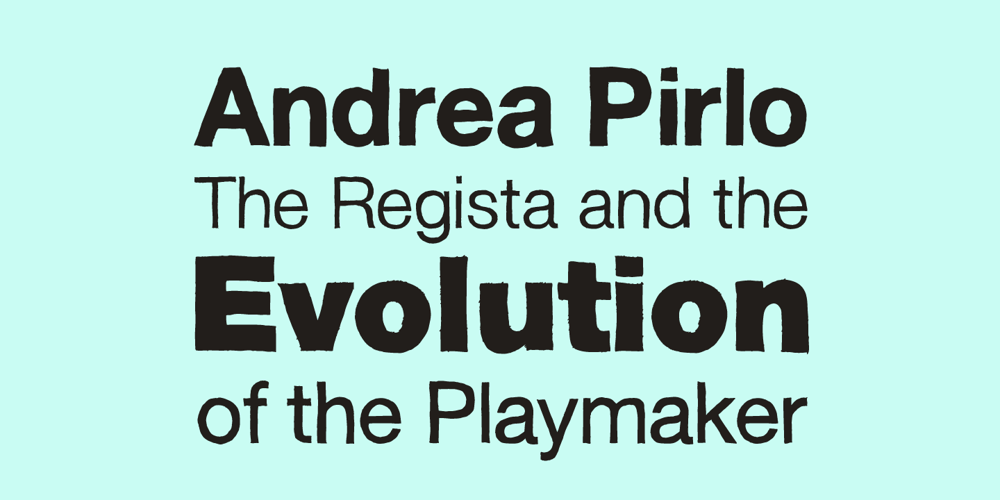
Sketchetik Fill
Sketchetik Fill font
Sketchetik Fill Font Family was designed by Ossi Gustafsson and published by Hiekka Graphics. Sketchetik Fill contains 4 styles and family package options. Sketchetik Fill – brother of famous Sketchetik – is a hand-drawn font in four styles: Light, Regular, Bold and Black. Sketchetik Fill is recommended for use as a display typeface.